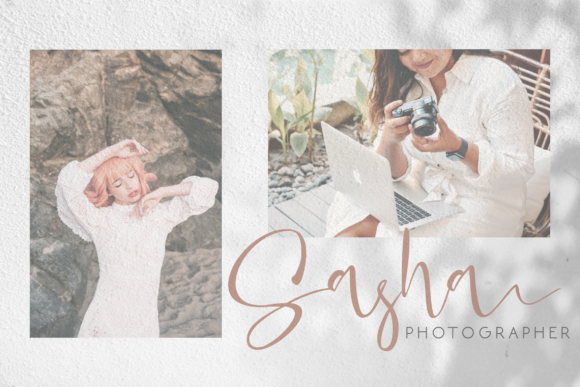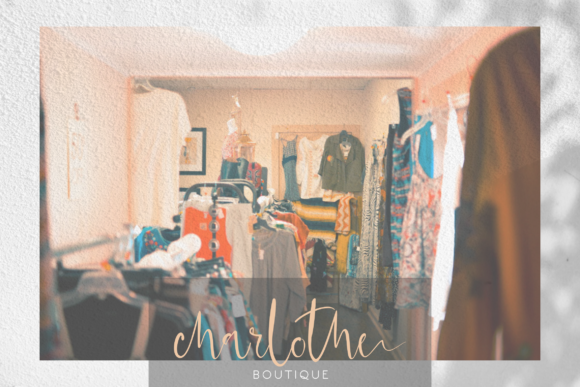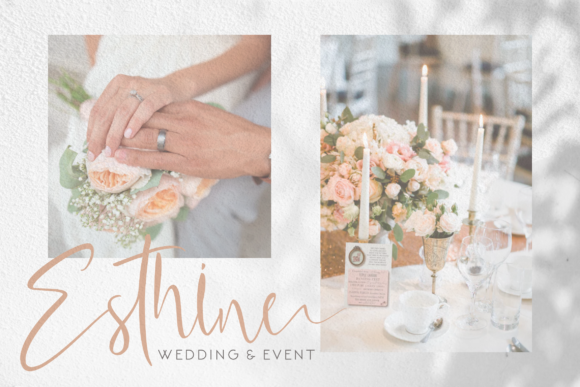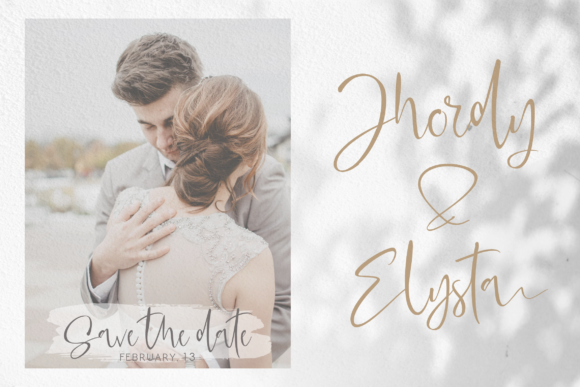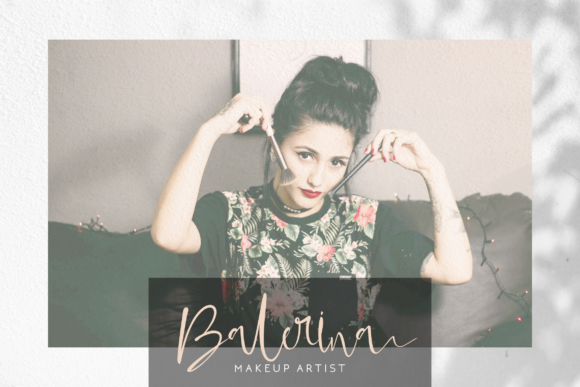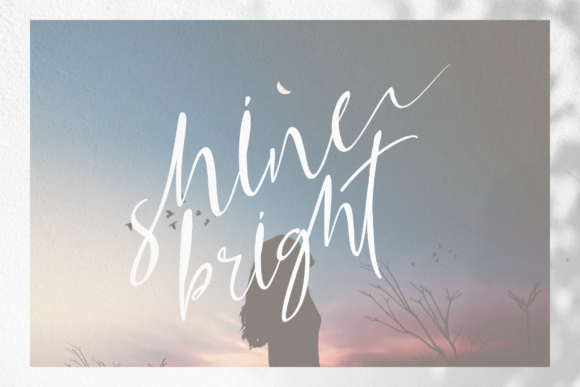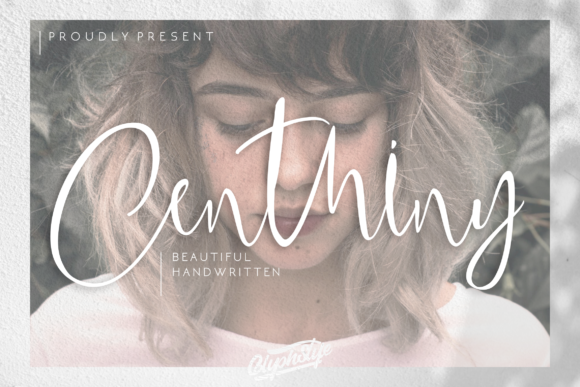
Introducing Centhiny Font: Elevate Your Designs with a Stunning Script Font
Are you tired of using the same old fonts in your design projects? Do you want to add a touch of elegance and sophistication to your creations? Look no further than Centhiny Font, a beautiful script font with a contemporary look that’s sure to make your designs stand out.
What is Centhiny Font?
Centhiny Font is a stunning script font that’s perfect for designers and crafters who want to add a touch of luxury to their projects. With its modern and sleek design, Centhiny Font is ideal for a wide range of applications, from branding and advertising to packaging and digital media.
Key Features of Centhiny Font
• Contemporary look: Centhiny Font has a fresh and modern design that’s perfect for designers who want to create unique and eye-catching designs.
• Script style: With its flowing script style, Centhiny Font adds a touch of elegance and sophistication to any design project.
• Highly versatile: Centhiny Font can be used for a wide range of applications, from headings and titles to body text and captions.
• Easily readable: Despite its script style, Centhiny Font is highly readable, making it perfect for use in both digital and print designs.
Why Use Centhiny Font?
There are many reasons why designers and crafters should consider using Centhiny Font in their projects. Here are just a few:
• Add a touch of luxury: Centhiny Font is perfect for designers who want to add a touch of luxury and sophistication to their designs.
• Stand out from the crowd: With its unique and modern design, Centhiny Font is sure to make your designs stand out from the crowd.
• Easy to use: Centhiny Font is highly versatile and can be used in a wide range of applications, making it easy to incorporate into your design workflow.
How to Use Centhiny Font
Using Centhiny Font is easy. Here are a few tips to get you started:
• Use it as a headline font: Centhiny Font is perfect for use as a headline font, adding a touch of elegance and sophistication to your titles and headings.
• Pair it with other fonts: Centhiny Font pairs well with a wide range of other fonts, making it easy to create unique and visually appealing designs.
• Experiment with different colors: Centhiny Font looks great in a wide range of colors, so don’t be afraid to experiment and find the perfect color for your design.
Centhiny Font in Action
Centhiny Font can be used in a wide range of applications, from branding and advertising to packaging and digital media. Here are a few examples of how Centhiny Font can be used in action:
• Branding and advertising: Use Centhiny Font to create eye-catching logos, advertisements, and marketing materials that are sure to grab attention.
• Packaging design: Add a touch of luxury to your packaging designs with Centhiny Font, perfect for high-end products and premium brands.
• Digital media: Use Centhiny Font to create visually appealing digital media, including social media graphics, blog posts, and website headers.
In conclusion, Centhiny Font is a stunning script font with a contemporary look that’s perfect for designers and crafters who want to add a touch of luxury and sophistication to their designs. With its highly versatile design and easily readable style, Centhiny Font is sure to become a go-to font in your design toolkit. So why wait? Download Centhiny Font today and start creating stunning designs that stand out from the crowd!